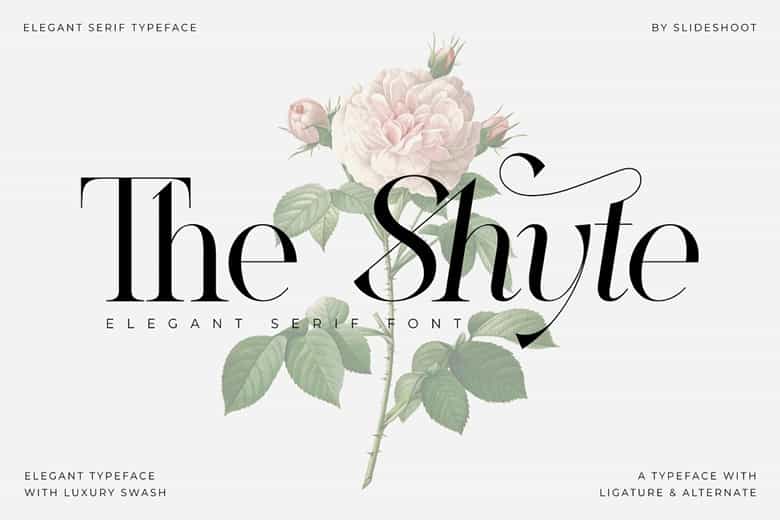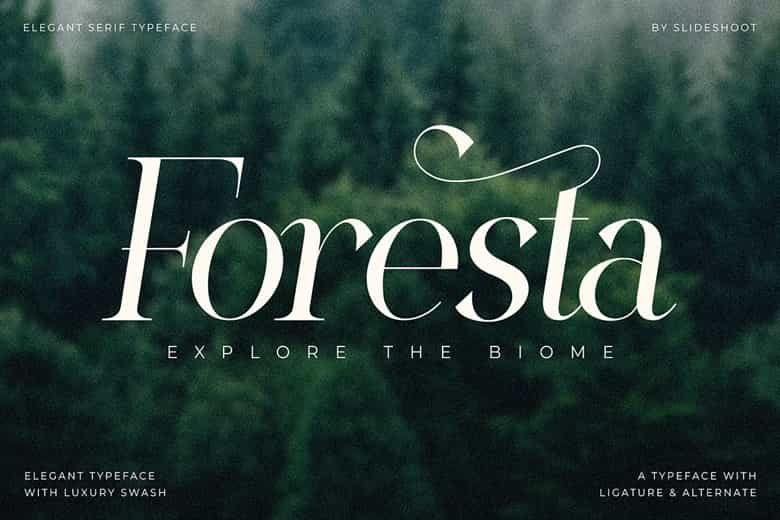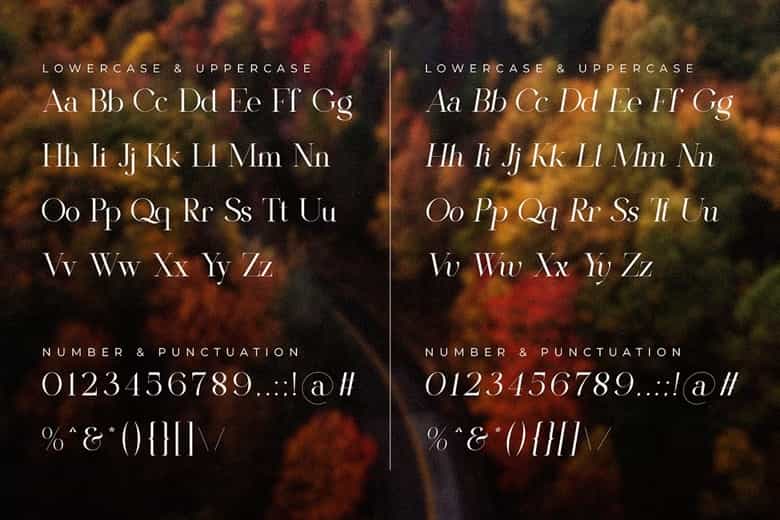
The Shyte is an elegant serif font that contains a clean, harmonious, graceful and beautiful serif style. This typeface has two basic styles – Regular and Italic – which are supposed to harmoniously complement each other and exist independently. He has a beautiful character. Ideal for using with invitation cards, company logos, films titles, names of films, business cards, book titles, brand names and other designs.